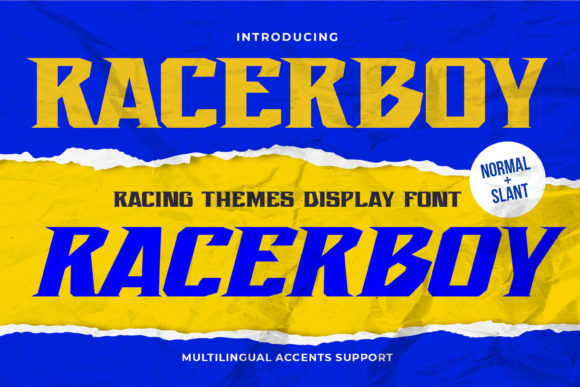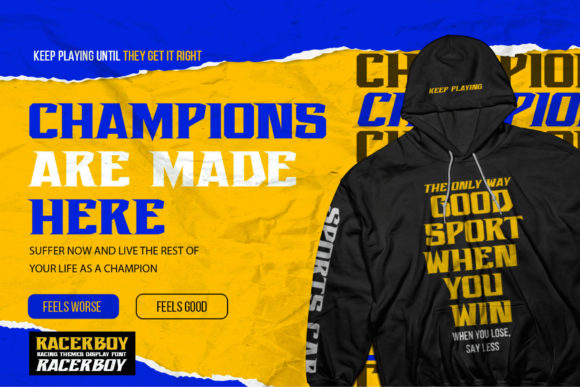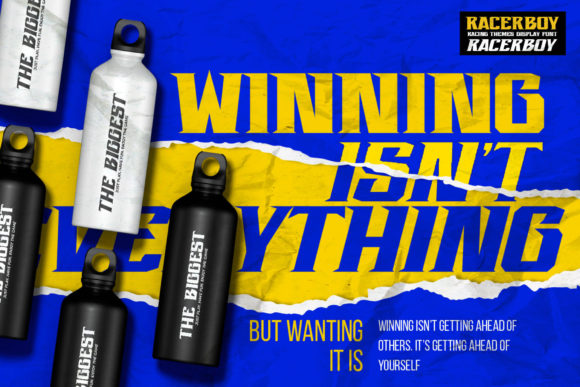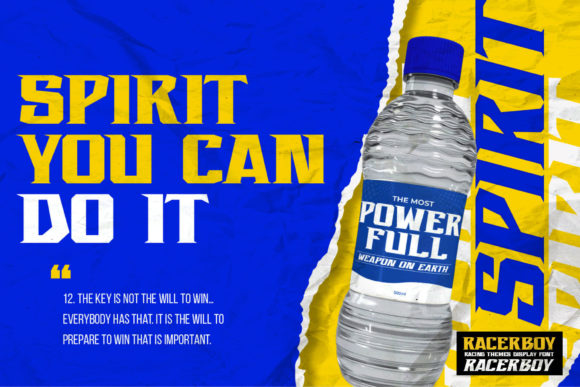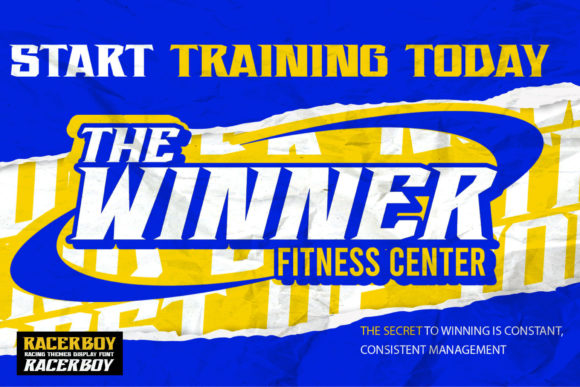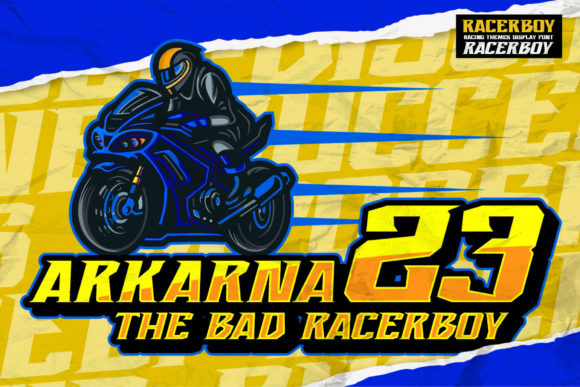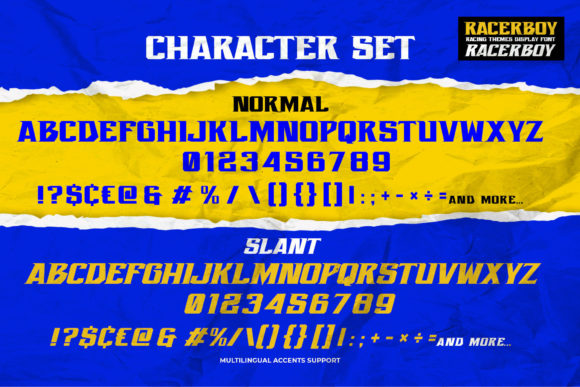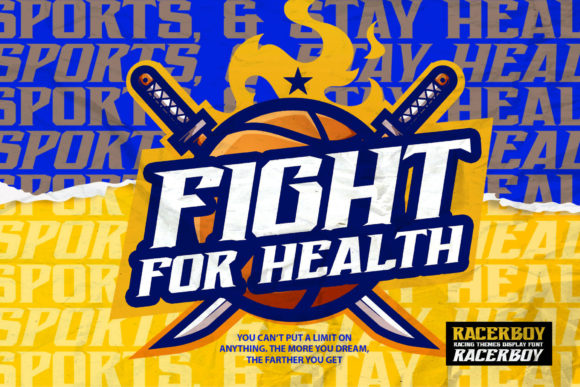
Recerboy
Racerboy: A Racing-Themed Slab Serif Font
Racerboy is a racing-themed slab serif font perfect for designing templates, brochures, videos, advertising branding, logos, and more. It is a sports display font with strong sport nuances, making it ideal for creative projects such as logos, printed quotes, invitations, cards, product packaging, headers, logotypes, letterheads, posters, and labels. Crafted manually with love and passion, this handmade font will make your design more beautiful and natural.
Key Features of Racerboy
• Racing Theme: Offers a dynamic and energetic look suitable for sports-related applications.
• Slab Serif Structure: Features thick, rectangular serifs typical of slab serif fonts.
• Versatile Application: Ideal for both print and digital media projects.
• Handmade Quality: Crafted with attention to detail to ensure a unique and standout appearance.
Ideal Uses for Racerboy
Racerboy’s unique characteristics make it particularly well-suited for:
When incorporating Racerboy into your designs, consider these tips:
• Use for headlines or short blocks of text to showcase its racing style.
• Utilize its sporty appearance across various creative projects to enhance visual appeal.
Racerboy is an excellent choice for designers looking to add a racing-themed slab serif font to their typographic toolkit. Its ability to bring energy and style to various design projects makes it stand out in the world of typography. Whether you’re working on sports branding, creating layouts for magazines, or developing content that requires a touch of dynamism, Racerboy offers the perfect blend of style and functionality.
Furthermore, Racerboy’s unique design allows it to shine in various contexts. From vintage-inspired designs with a modern twist to more contemporary layouts that need a touch of uniqueness, this font can elevate your projects. Its striking yet functional style works particularly well in designs that require a thoughtful and engaging mood.
In conclusion, Racerboy is a font that truly captures the essence of creativity and impact in typography. Its ability to work well in both minimalist projects and more elaborate layouts showcases its flexibility. For those looking to add a touch of unique charm to their work, Racerboy can even enhance themed creations with its distinctive style. It’s the perfect choice for designers seeking to make a strong, stylish impact across a wide range of creative projects.